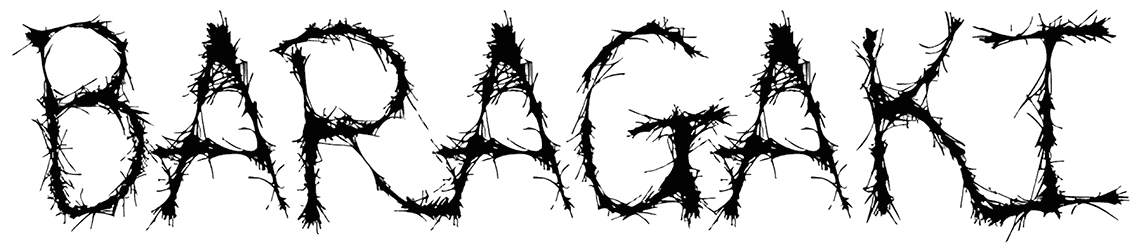
Baragaki Font
Horror themes are very popular, and it’s a bit hard to create their mood content. For example, if you want to make a horror book cover or poster, a font like Baragaki with its spiky look would be a great help.